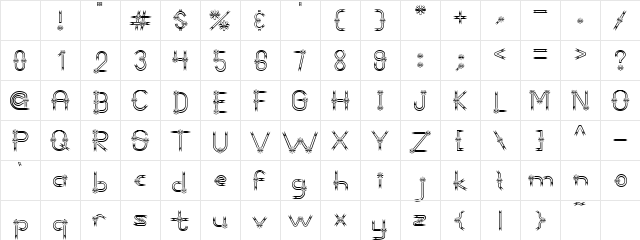
Complete AC1-Ribbon Regular glyph index. Displaying only characters natively supported by AC1-Ribbon Regular font.
AC1-Ribbon is a composed and adaptable typeface that performs quietly and consistently across a wide range of design contexts.